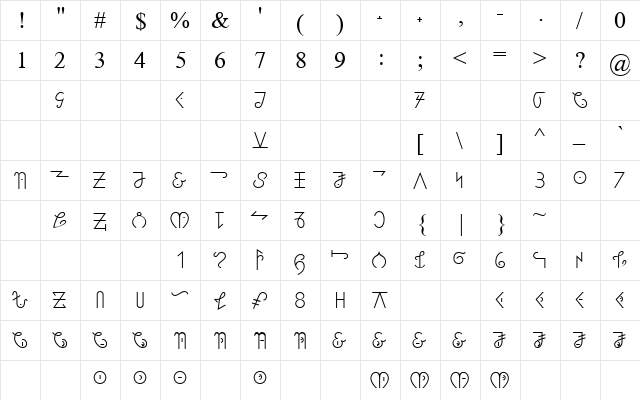
JG Bassa Vah Handwriting Regular
Design Context for JG Bassa Vah Handwriting Typeface
JG Bassa Vah Handwriting brings a calligraphic fluidity to the page — its connecting strokes and expressive curves give it an unmistakably human quality.